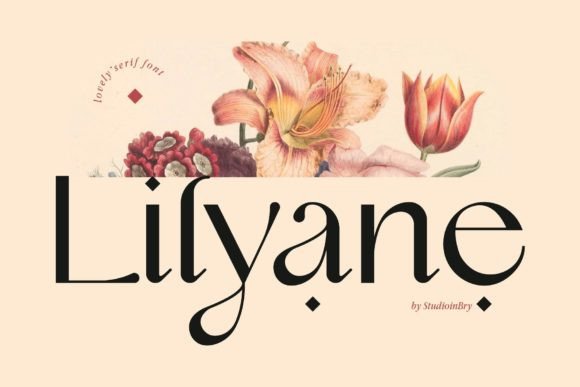
Unleash the Allure of Lilyane Font: Where Elegance and Charm Intertwine
In a realm where visual aesthetics reign supreme, allow us to introduce Lilyane Font, a modern, elegant, and utterly captivating display font that will transform your creative projects into masterpieces. This enchanting creation by StudioinBry is a symphony of grace and authenticity, radiating charm in every meticulously crafted character.
With Lilyane Font gracing your designs, prepare to witness a visual metamorphosis. Its captivating curves and delicate serifs dance together harmoniously, evoking a sense of timeless elegance. Whether you're crafting captivating branding materials, captivating social media posts, or designing exquisite packaging, Lilyane Font seamlessly blends sophistication and playfulness, leaving an indelible mark on all who behold it.
Immerse yourself in a world of creative possibilities with Lilyane Font. Its versatility knows no bounds, inviting you to explore a vast spectrum of design applications. From eye-catching headlines that command attention to alluring logos that exude professionalism, Lilyane Font effortlessly elevates your creations to new heights of visual excellence.
But Lilyane Font's allure extends far beyond its aesthetic appeal. It's a font meticulously engineered to provide an exceptional user experience. With PUA encoding, accessing the full repertoire of glyphs and swashes is a breeze, empowering you to effortlessly incorporate intricate details and flourishes into your designs.
Unleash your creativity and let Lilyane Font ignite a new era of visual storytelling. Its timeless charm will captivate audiences, leaving them spellbound by the sheer beauty and elegance of your creations. Embrace Lilyane Font today and embark on a journey of artistic exploration, where every design becomes a testament to your impeccable taste and discerning eye.